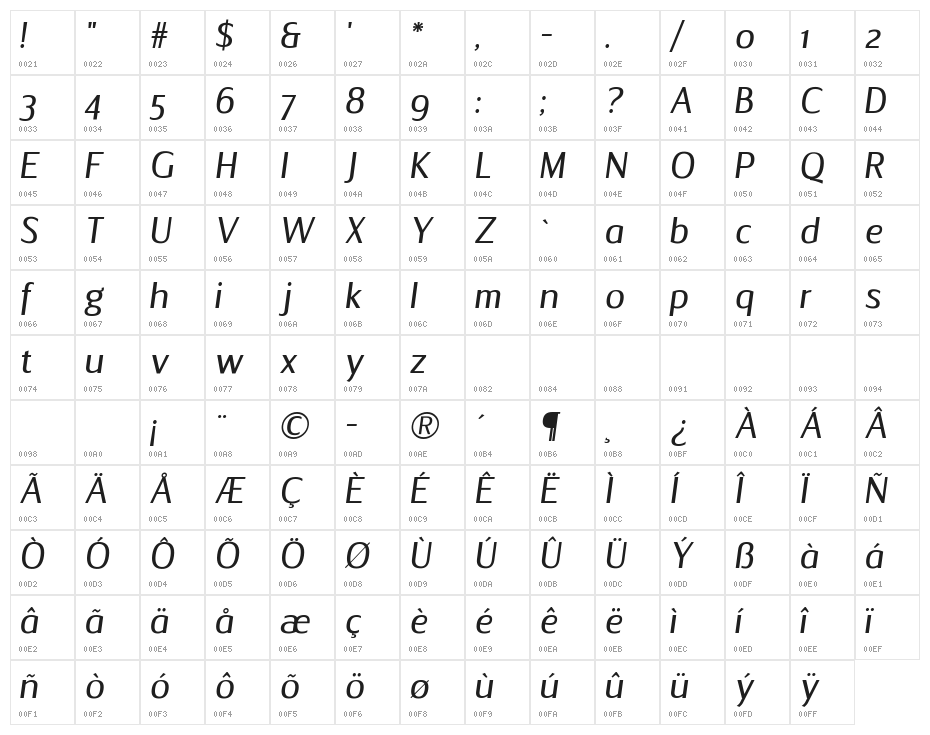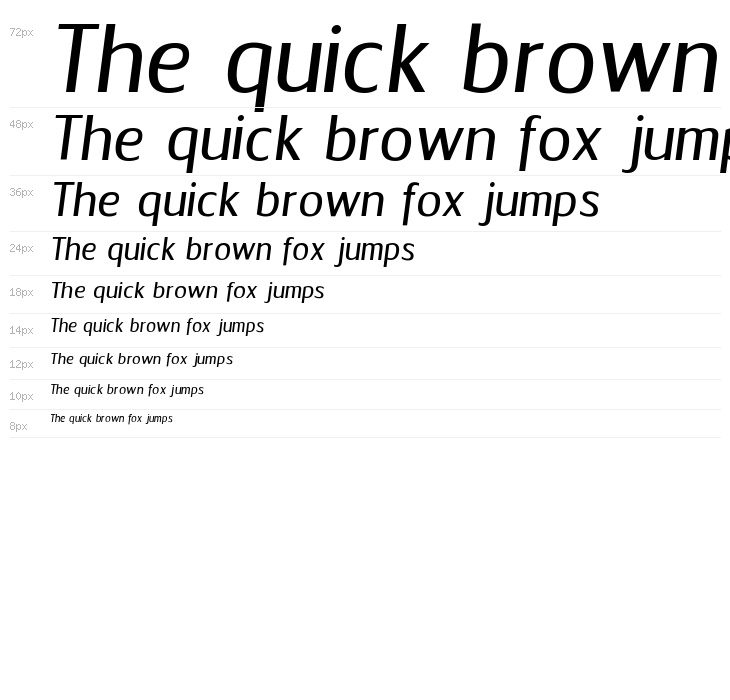
Florid Italic Font
Florid Italic Description
This font exhibits a sleek and elegant italic style, characterized by its smooth curves and slightly slanted posture. The uppercase letters are well-proportioned, offering a sense of sophistication and fluidity. The lowercase letters maintain a consistent flow, enhancing readability while adding a touch of grace. Numerals are clear and distinct, making them suitable for various applications. Special characters are thoughtfully designed, complementing the overall aesthetic. The font's design is modern yet timeless, making it versatile for a wide range of uses.